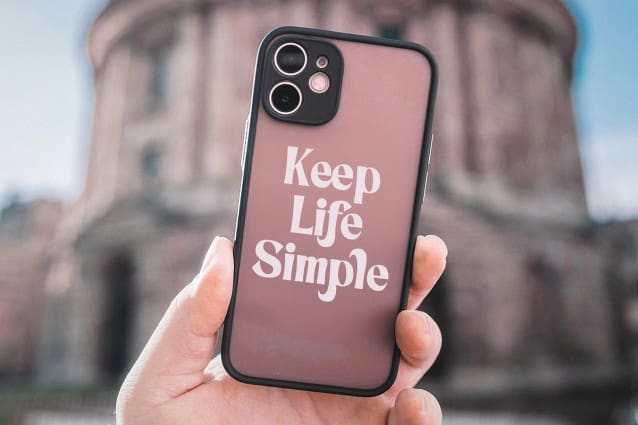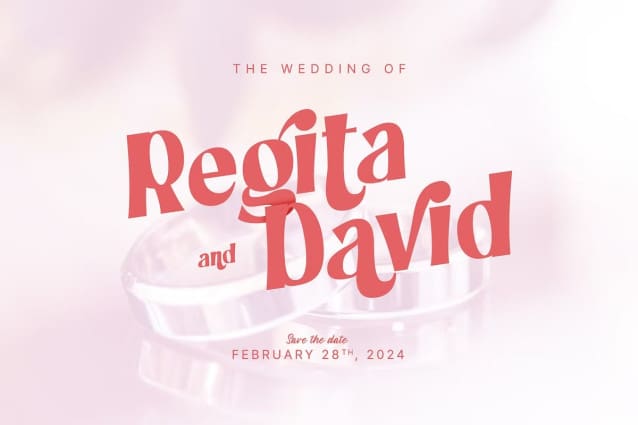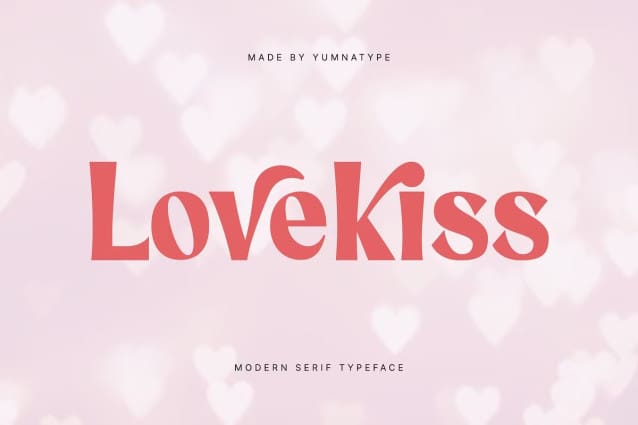
Lovekiss Font
Lovekiss Font is a captivating serif font that seamlessly blends classic elegance with modern flair. Crafted in a contemporary style, this font exudes sophistication and charm. With its clean lines and balanced proportions, Lovekiss strikes the perfect balance between tradition and innovation.
Each letter is meticulously crafted with subtle detailing and graceful curves, creating a sense of timeless beauty that is both versatile and impactful. Despite its classic serif roots, Lovekiss Font is designed with a modern twist that sets it apart from traditional fonts. Its sleek lines and minimalist aesthetic give it a contemporary edge.